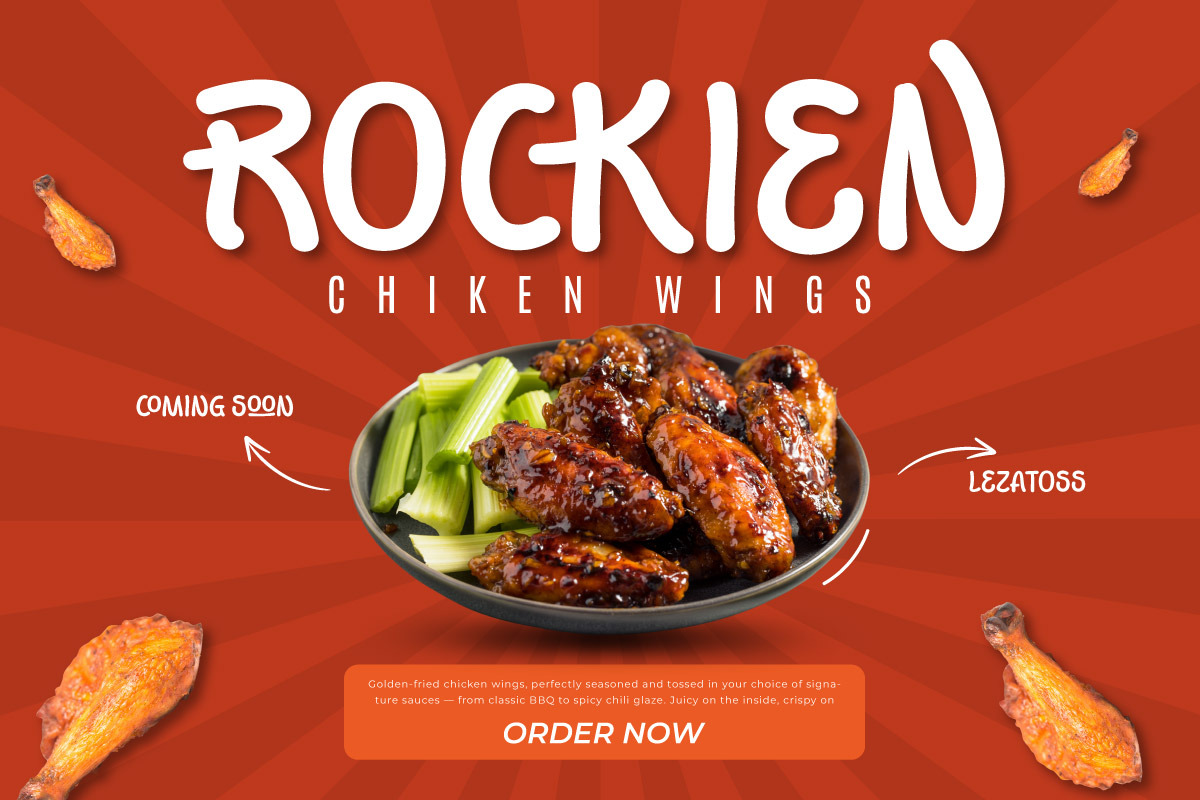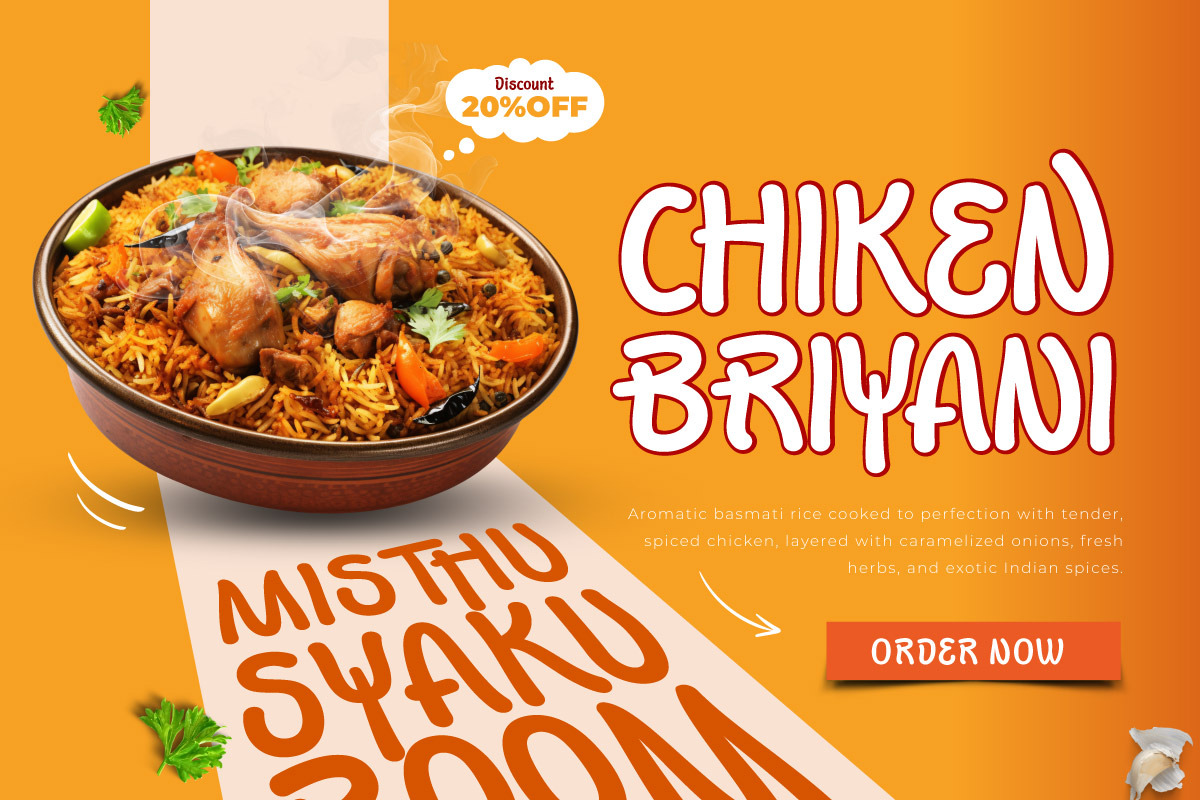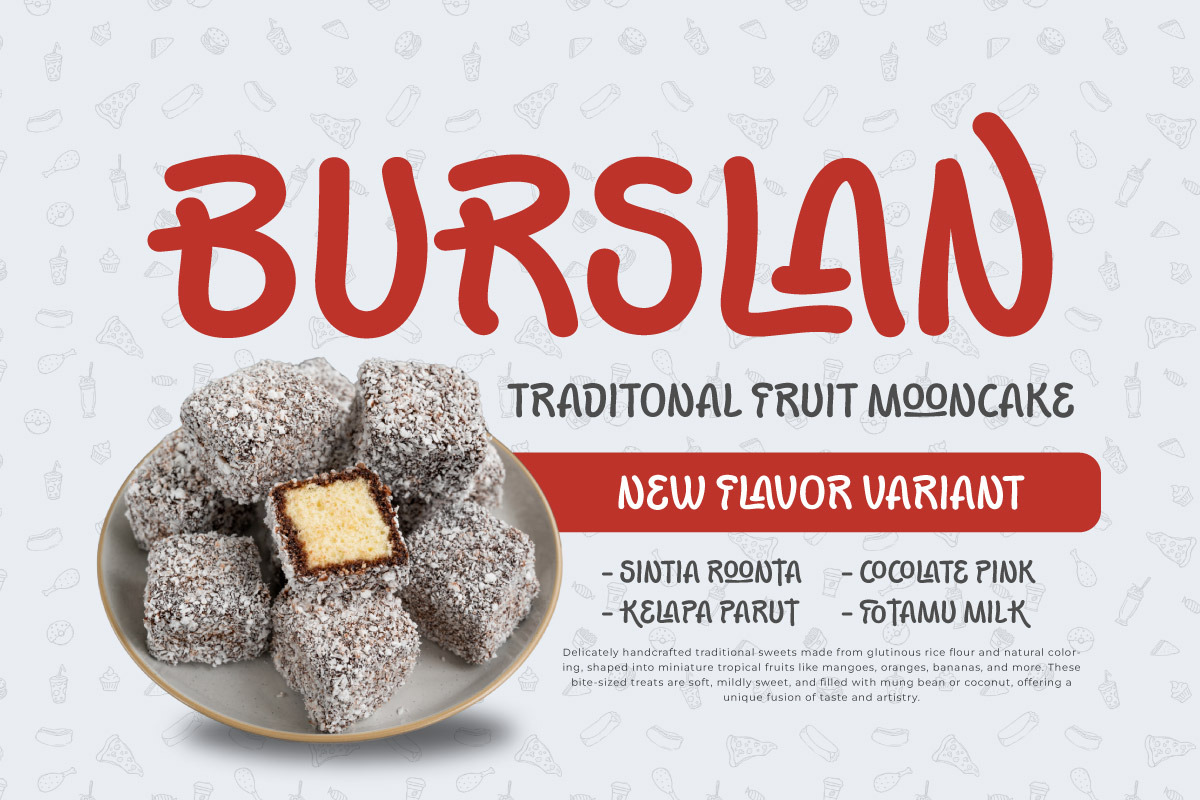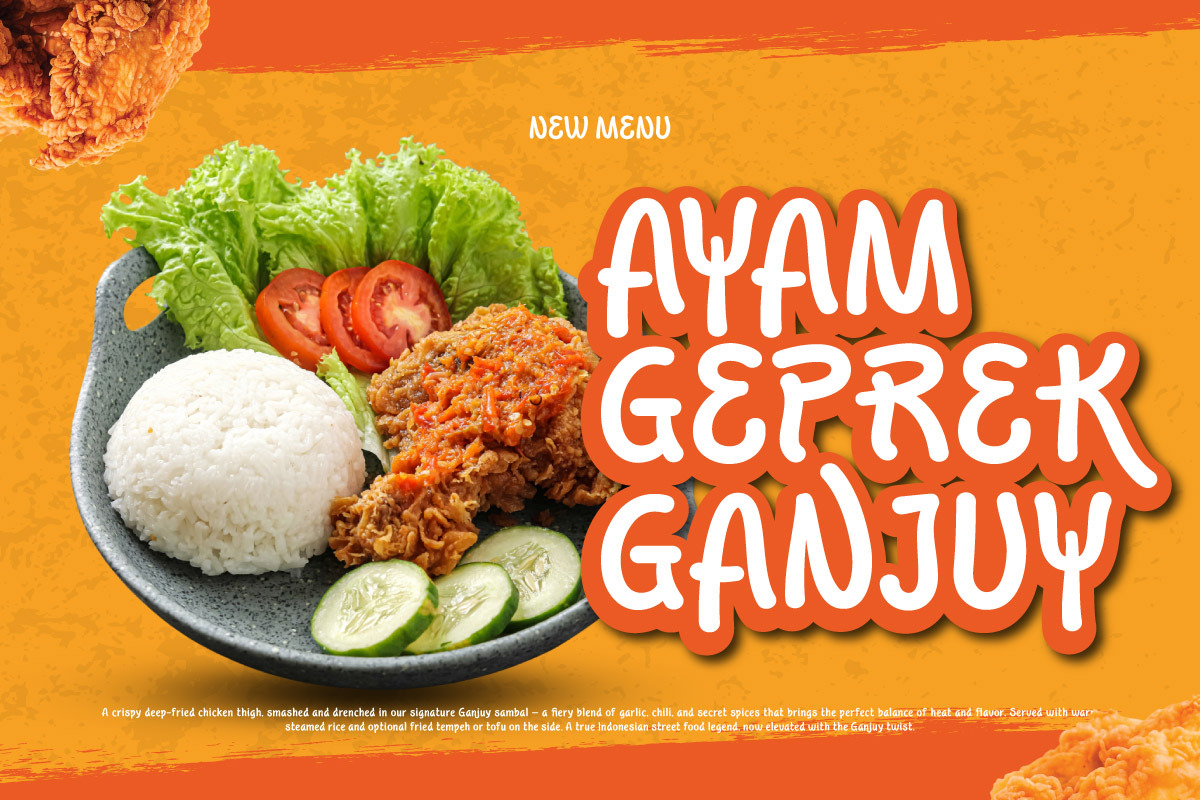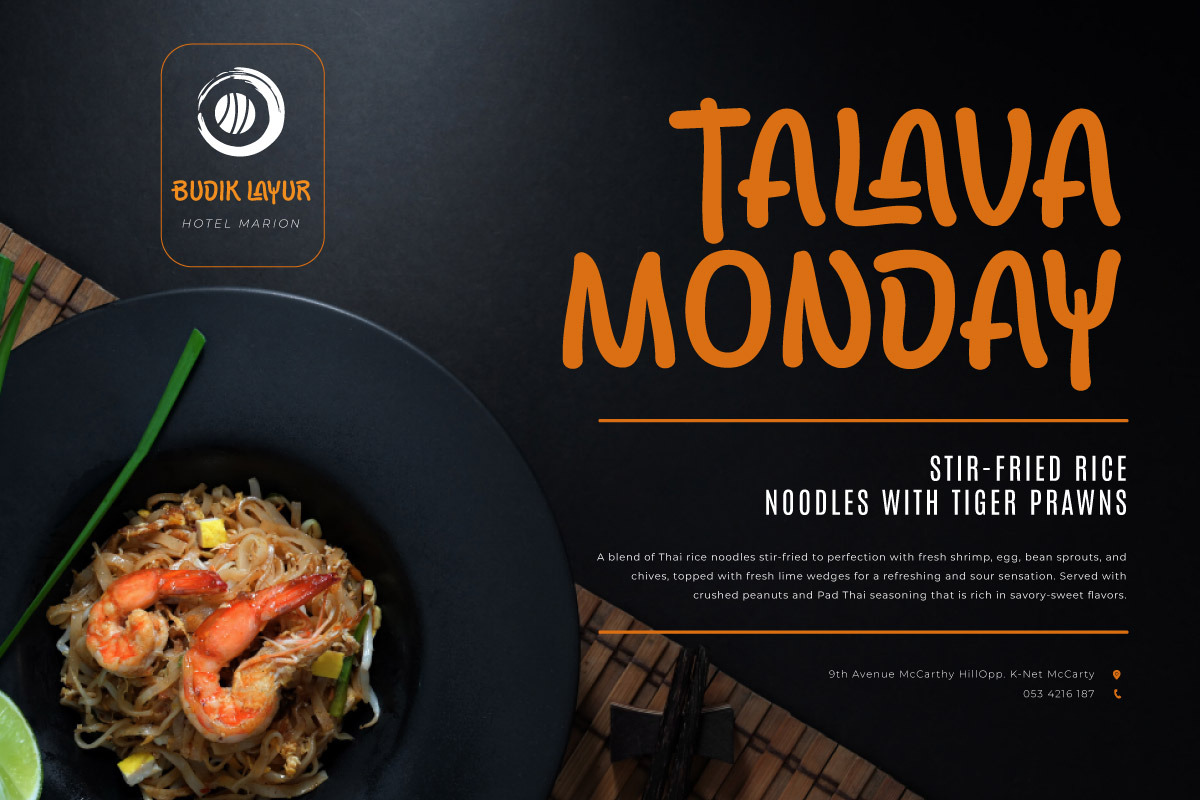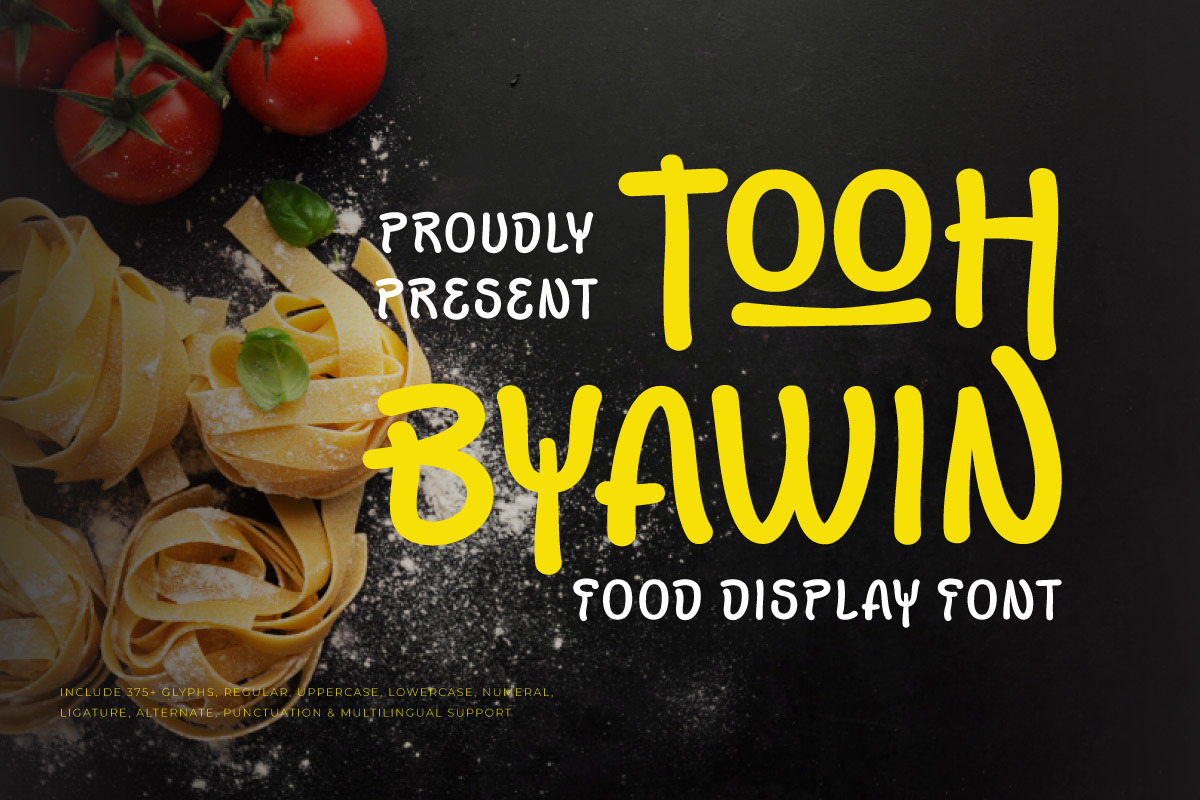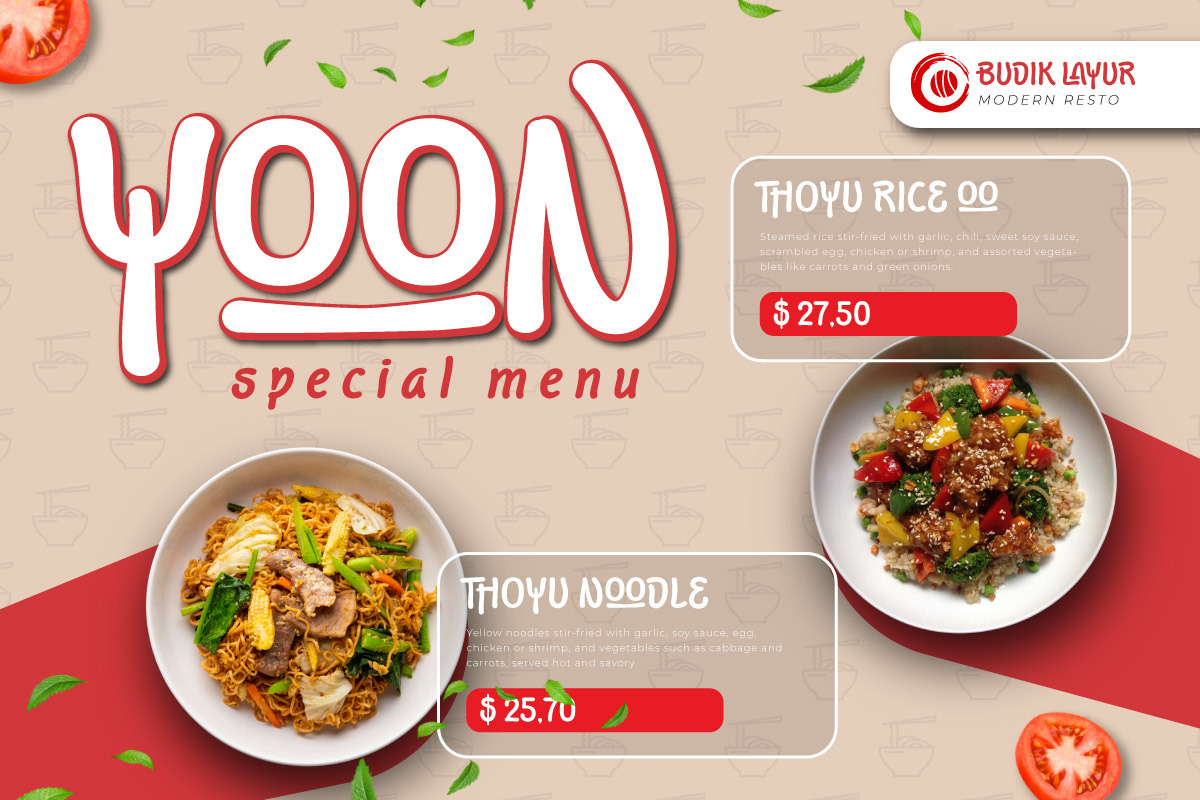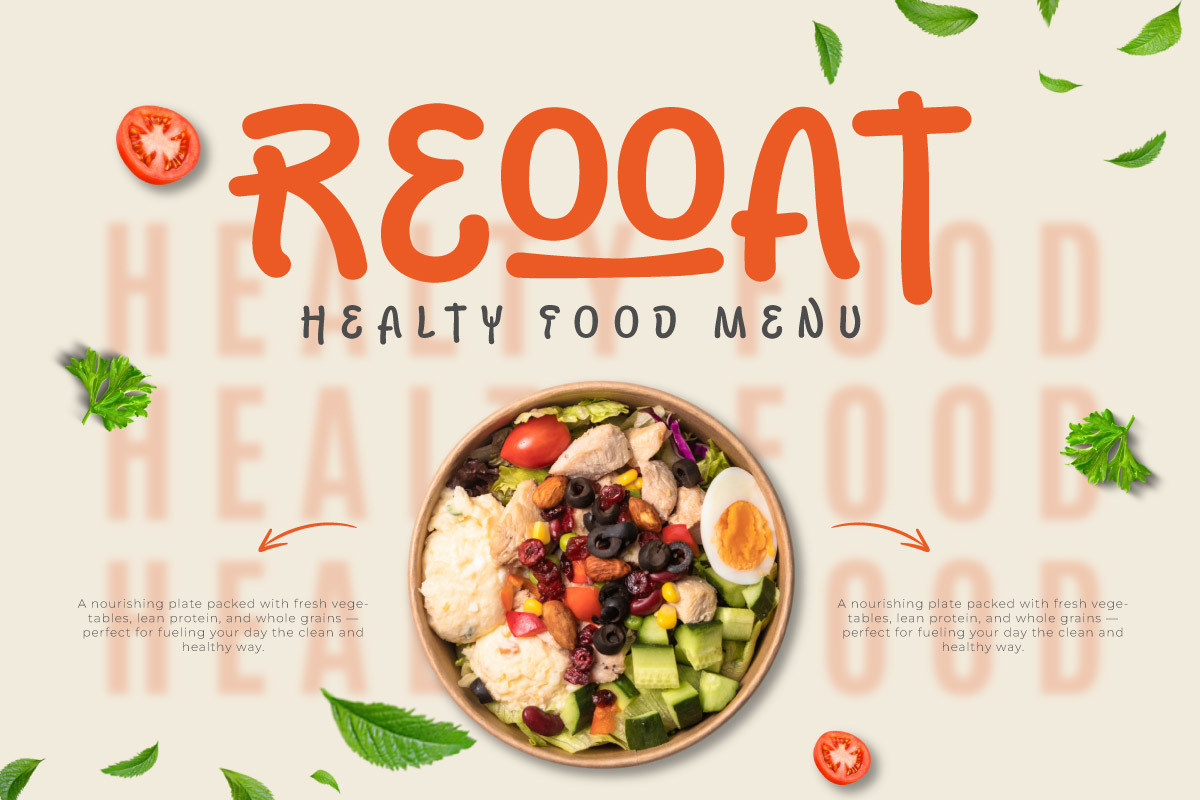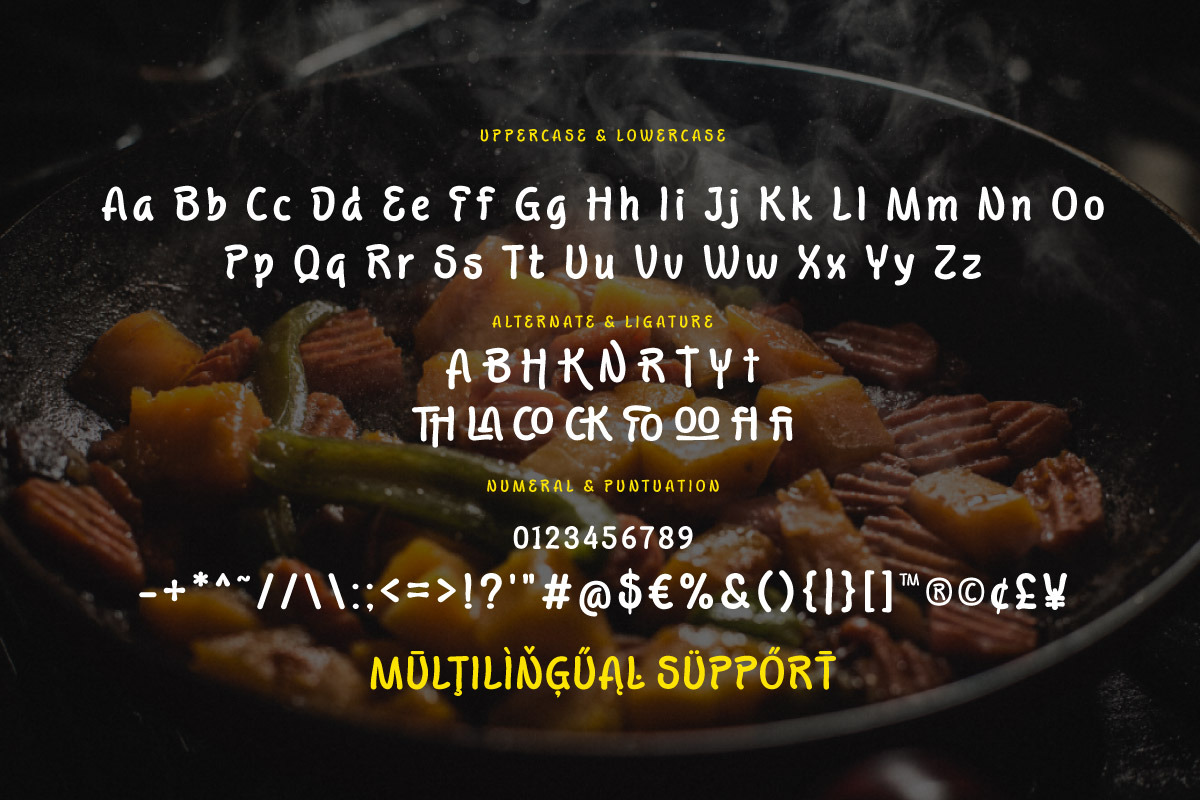
Tooh Byawin - Food Display Font
Introducing Tooh Byawin, a deliciously bold and playful display font crafted especially for food branding, packaging, and culinary design projects. With rounded shapes, soft curves, and a hearty character, this font evokes the warmth of comfort food and the joy of shared meals. It’s perfect for snack labels, café menus, street food stalls, or cheerful bakery signage.
Tooh Byawin’s bubbly personality makes it ideal for grabbing attention while staying friendly and fun. Whether you're launching a food truck, designing a logo for a candy brand, or creating content for a cooking blog, this font will add a flavorful touch that’s both inviting and irresistible.